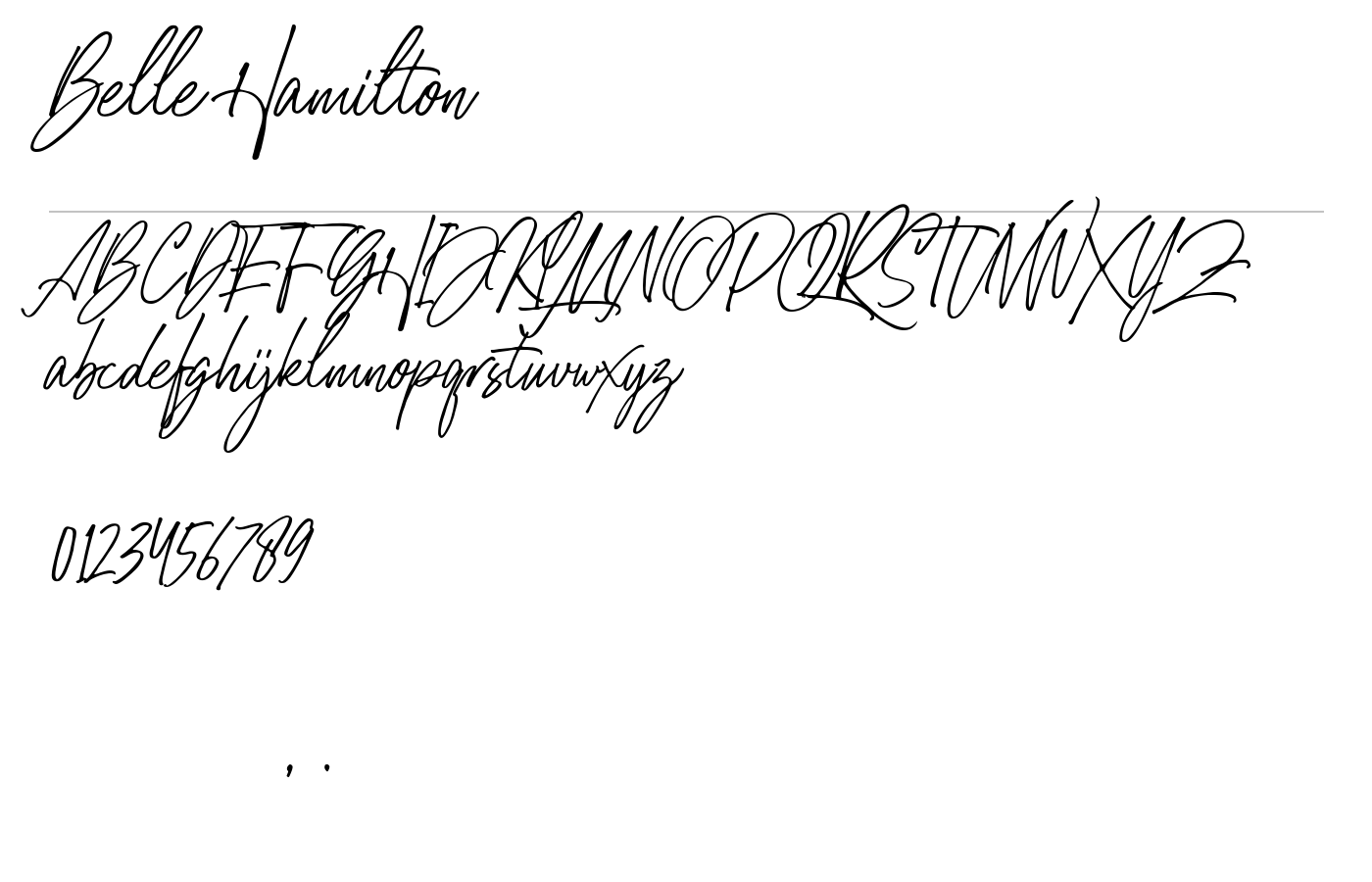
Belle Hamilton is an elegant, handwritten script font with a delicate, flowing style that combines thin strokes and a casual yet sophisticated feel. Its tall, narrow letterforms and smooth, connected characters make it ideal for branding, invitations, and stylish editorial work where a personal, artistic touch is desired. This font works best for designs that want to express elegance and modernity with a natural, handcrafted look.
Belle Hamilton Font